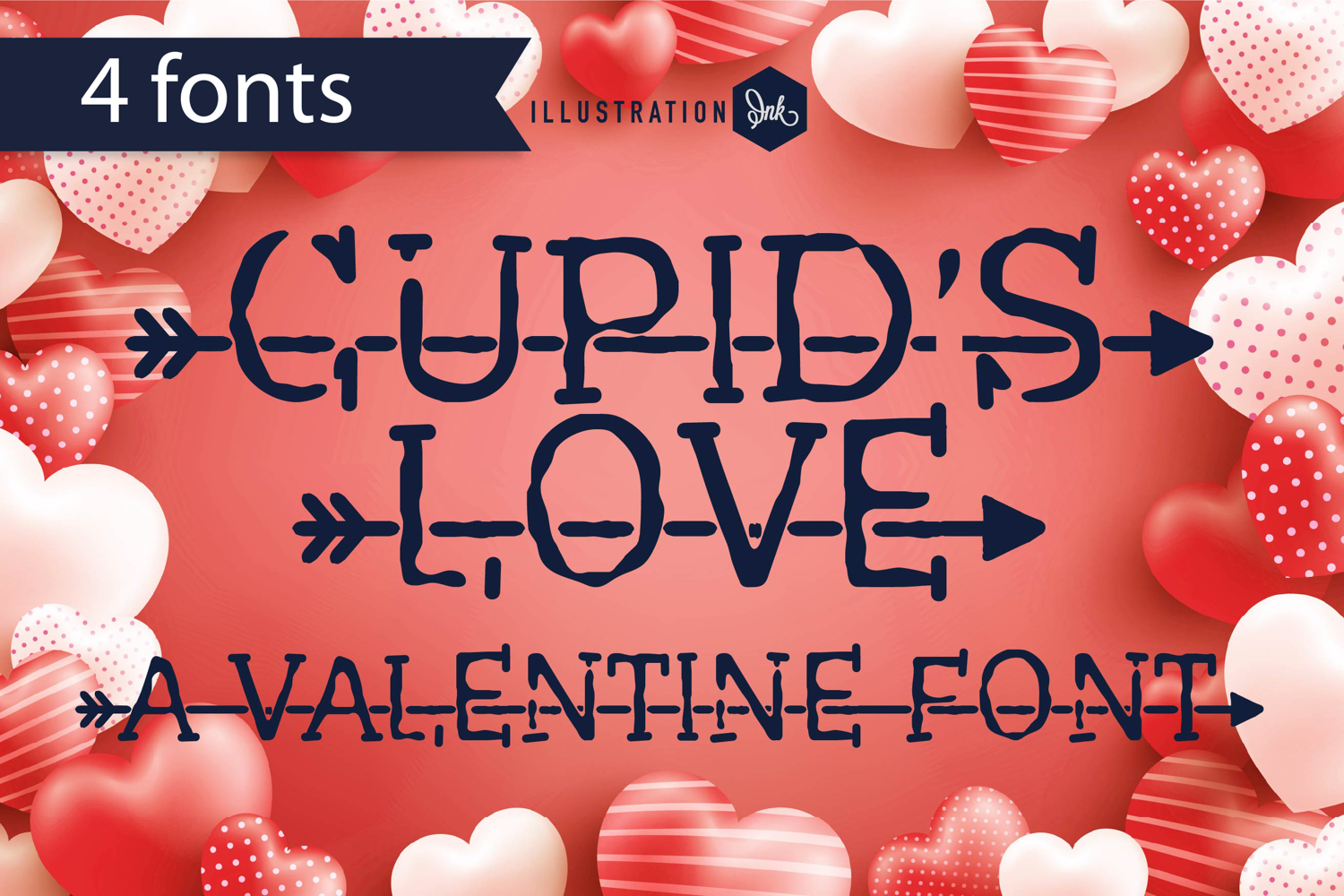
PN Cupid's Love Font Family
This hand-crafted font looks like Cupid's arrow has been driven throughout it. The arrow actually only flows through the lowercase. The uppercase is without. Use the greater than and less than brackets (<,>) and use the hyphen or equal sign (-,=) for a continued piece of arrow without lettering. Type "<a-valentine-font>" to get the example.
• The letters are not perfectly uniform in size or shape.
• There may be slight variations in the spacing between letters and words.
• The font may have a "wiggly" or "squiggly" appearance.
• The font may be difficult to read at small sizes.